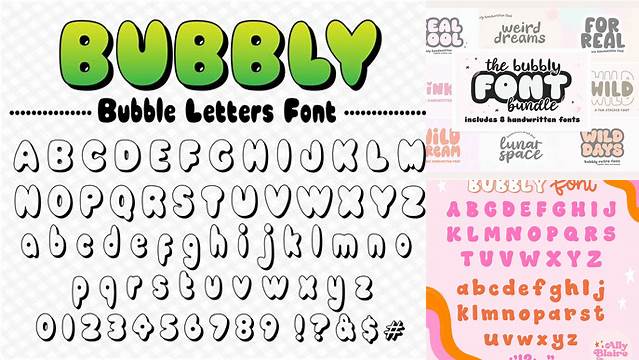
Bubbly Fonts: Copy & Paste For Fun Designs!
Hey guys! Ever wanted to add a bit of fun and whimsy to your designs? Look no further than bubbly fonts! These playful typefaces can instantly transform any project, from social media graphics to birthday invitations. The best part? You can easily copy and paste them into your favorite apps and platforms. Let’s dive into the wonderful world of bubbly fonts and explore how you can use them to create eye-catching designs.
What are Bubbly Fonts?
Bubbly fonts, as the name suggests, are typefaces characterized by their rounded, soft, and playful appearance. Often, these fonts have a cartoonish or childlike feel, making them perfect for designs targeting younger audiences or projects that aim to convey a sense of fun and lightheartedness. You might recognize bubbly fonts from children’s books, animated movies, or even retro advertising. The inherent friendliness of these fonts makes them incredibly versatile and appealing for various applications. Using a bubbly font can instantly inject personality into your project, making it stand out and grab attention.
Beyond their visual appeal, bubbly fonts also carry a psychological impact. Their rounded edges and soft curves evoke feelings of comfort, joy, and nostalgia. This makes them an excellent choice for branding materials, especially for businesses that want to project a warm and approachable image. Whether you're designing a logo, creating marketing materials, or simply adding some flair to your personal projects, bubbly fonts can help you achieve the desired emotional connection with your audience. The ease of use, thanks to the copy and paste functionality, makes them even more accessible for designers of all skill levels.
Moreover, the versatility of bubbly fonts extends to various design styles. They can be paired with minimalist backgrounds for a modern look or combined with vibrant colors and illustrations for a more playful and whimsical feel. The key is to experiment and find the combination that best suits your project's overall aesthetic. With the ability to copy and paste these fonts across different platforms, you can seamlessly integrate them into your workflow and maintain consistency in your designs. So, whether you're a professional designer or just starting out, bubbly fonts offer a fun and effective way to enhance your creative projects.
How to Copy and Paste Bubbly Fonts
Okay, so you've found the perfect bubbly font. Now, how do you actually use it? The good news is that copy and paste functionality makes it super easy! For most platforms, you'll simply select the text styled with the bubbly font, copy it (Ctrl+C or Cmd+C), and then paste it (Ctrl+V or Cmd+V) into your desired application. However, it's important to note that the appearance of the font might vary depending on the platform and its font support. Some platforms might not recognize the font and will default to a standard typeface. To ensure consistent display, you might need to use font embedding or image-based solutions.
One common method is to use online bubbly font generators. These tools allow you to type your text, select a bubbly font, and then generate a stylized version of your text that you can copy and paste as an image or Unicode characters. While this method ensures that the text will look consistent across different platforms, it also means that the text is no longer editable as text. This can be a drawback if you need to make changes to the text later on. However, for static designs or social media posts, it's a quick and easy way to incorporate bubbly fonts into your projects.
Another workaround is to use font embedding techniques. This involves including the bubbly font file directly into your project, so that the platform can render the text correctly. However, this method requires more technical knowledge and may not be supported by all platforms. For web projects, you can use CSS font-face rules to embed the font, while for print projects, you can include the font file in the design package. By using font embedding, you can ensure that your bubbly font looks exactly as intended, regardless of the platform or device used to view the design, and while some platforms might require technical workarounds, the basic copy and paste function remains the easiest way to add that special touch.
Final Thoughts on Bubbly Fonts
So, there you have it! A comprehensive guide to using bubbly fonts in your designs. These playful and versatile typefaces can add a touch of fun and personality to any project. Just remember to use them strategically and consider their impact on readability and accessibility. With a little creativity and experimentation, you can use bubbly fonts to create eye-catching and engaging designs that capture the attention of your audience. Most importantly, the ease of copy and paste makes it easy for you!